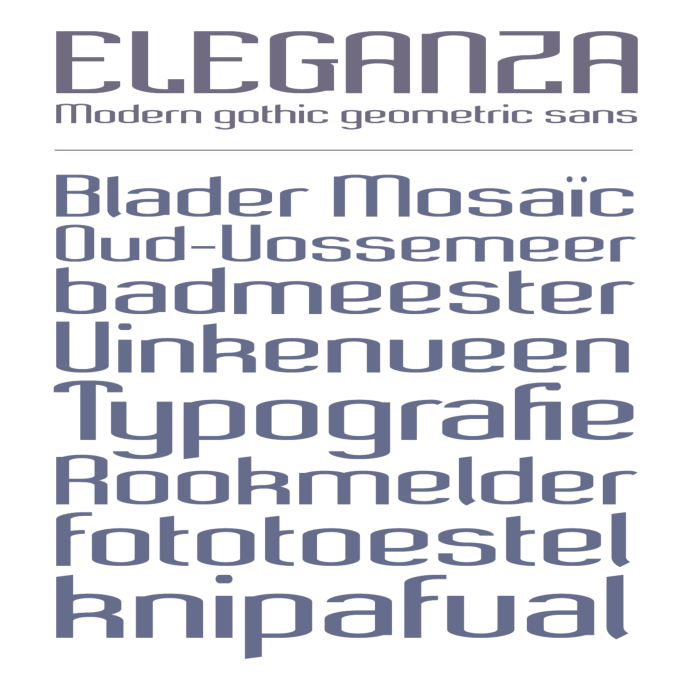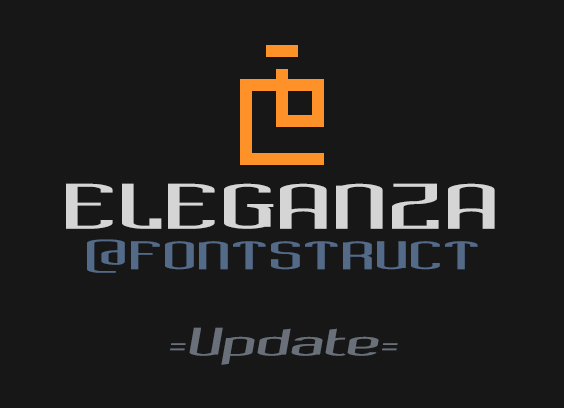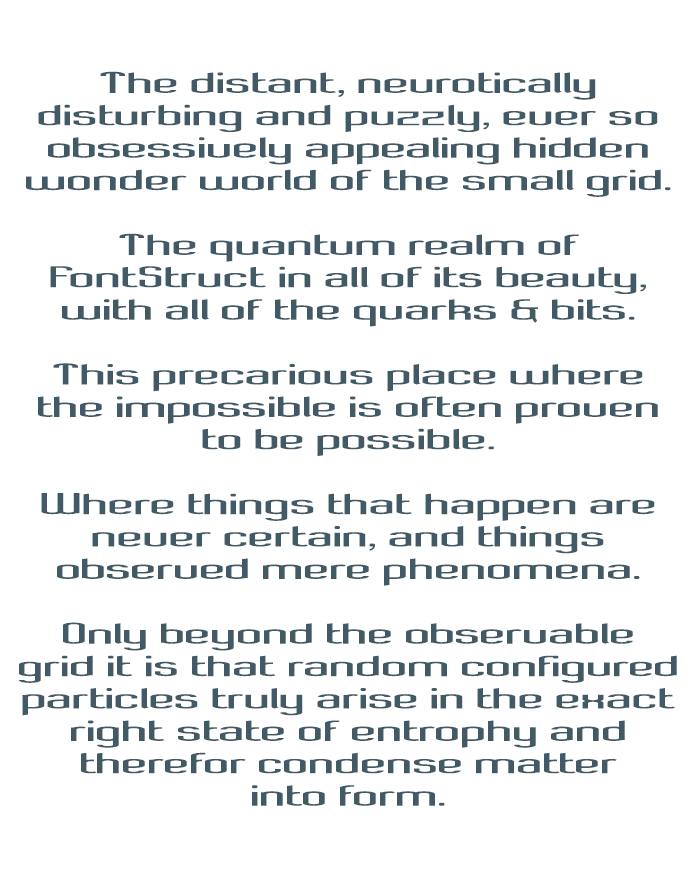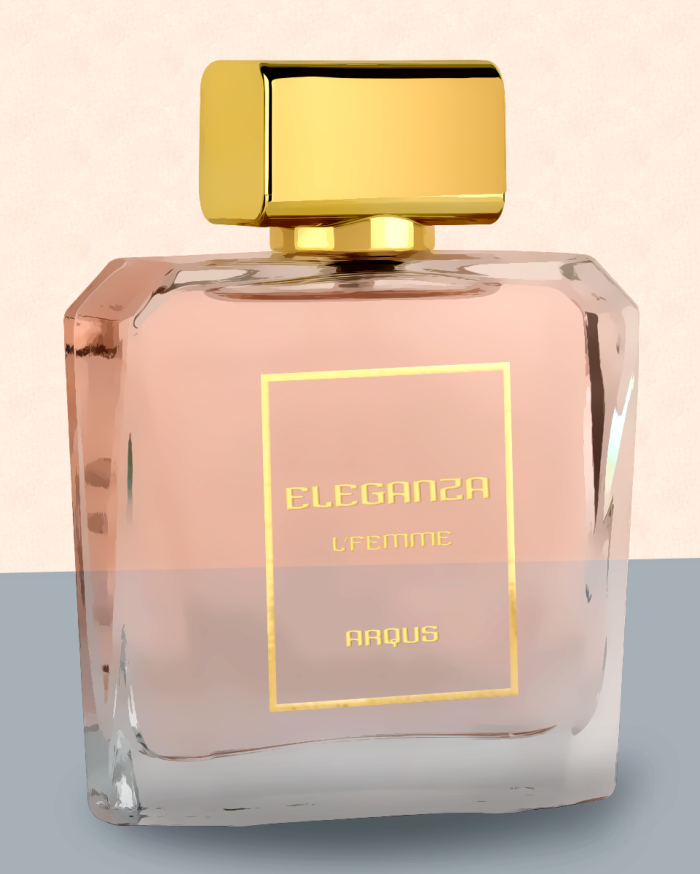
• STF_ELEGANZA (Tight) ― Contemporary geometric humanist sans
A font style, that while simplified by old tradition, saw new light by modern sophistication.
It comes in a solid medium weight that is very suitable for body style text with good readability, but it does perfect clean headlines or ads as well.
The goal was to make a clean but somewhat more contemporary and playful take on a 'Grotesque' sans-style.
In an attempt to break away from the traditional trend of Grotesque type designs which evolved more around pure geometric shapes and aim for perfect circular, triangular or square shaped letterforms, and in return give many of them a somewhat harsch and featureless mechanical appearance. I choose to achieve the opposite, aiming for a softer, friendlier and more humanized feeling instead.
This version is the 'Tight'-style in the 'ELEGANZA' typeface family. It has a slight compressed effect on its vertical axis that sets this apart from typical proportioned faces. Tightening the Leading and allowing greater quantities of lines per inch.
• Many new characters
• Ligatures
• Additional punctuation marks
• Kerning (partial)